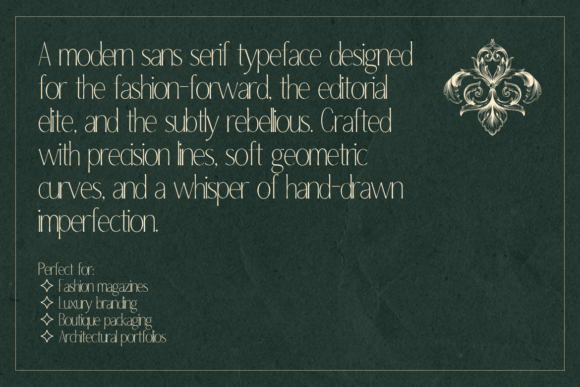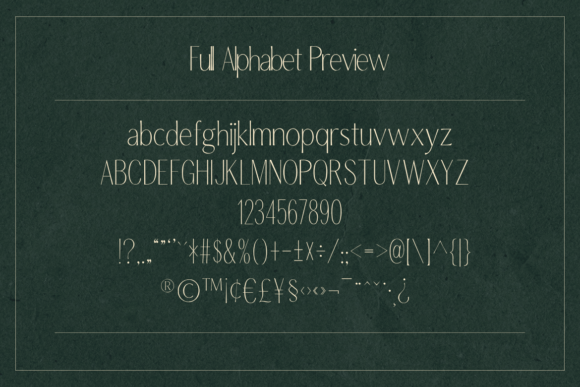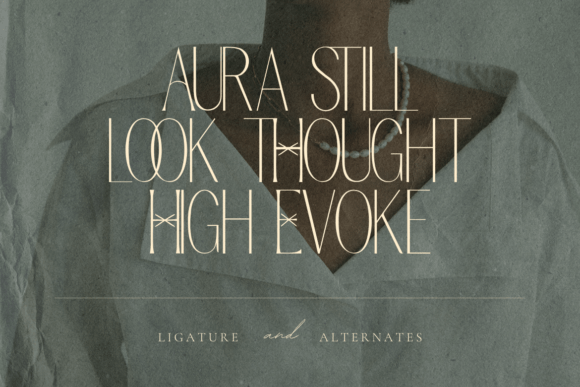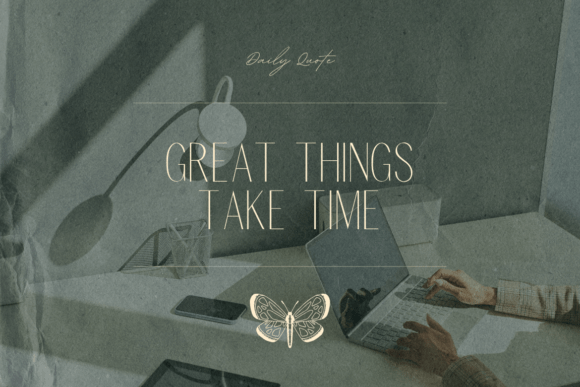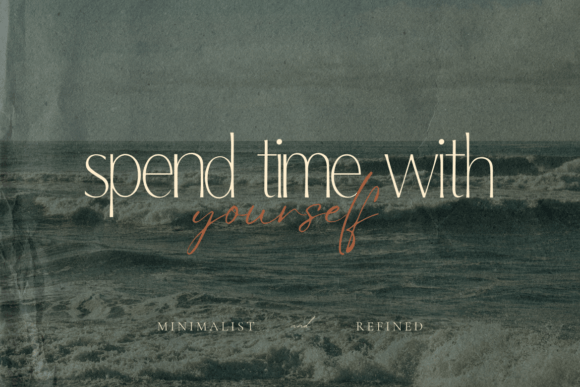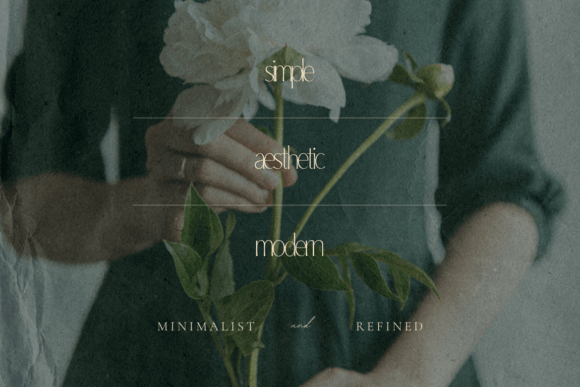
Introduction to Lignée Font
As designers, we’ve all been there – staring at a blank page, trying to bring our creative vision to life. It’s in these moments that the right font can make all the difference. Imagine the perfect balance of elegance and sophistication, a typeface that exudes luxury and refinement. Welcome to the world of Lignée Font, a meticulously crafted sans serif font designed to elevate your designs to new heights.
With its roots in classic editorial layouts, distinctive luxury branding, and precise architecture, Lignée Font is a game-changer for designers seeking high-quality design resources. Whether you’re working on a high-end creative project or simply need a reliable design tool, Lignée Font is the perfect addition to your arsenal. And the best part? It’s available for free download, complete with a transparent background, making it easy to integrate into your designs.
Key Features of Lignée Font
- High-quality, vector-based font design for creative projects, available for free download.
- Designed with a modern and sleek aesthetic, perfect for use in branding, advertising, and digital design.
- Perfect for designers and artists looking for a unique and versatile design resource.
Honest Review: Lignée Font
I recently came across the Lignée Font, and I must say it’s a fantastic addition to any designer’s toolkit. As a free download, it’s a wonderful resource for any creative project.
- The high quality of the font is immediately noticeable, making it perfect for professional designs.
- The transparent background allows for seamless integration into any background, giving designers more flexibility.
- The font’s elegant and modern design makes it suitable for a wide range of creative projects.
While the Lignée Font is excellent in many ways, I did notice that it’s not as versatile as some other fonts in terms of font sizes and styles.
Overall, I’m thoroughly impressed with the Lignée Font. Its high quality and elegant design make it a valuable resource for any designer working on a creative project. If you’re looking for a free download that will elevate your designs, I highly recommend giving the Lignée Font a try.
Lignée Font is suitable for various design projects, including:
1. Logo design
2. Brochures and flyers
3. Business cards
4. Social media graphics